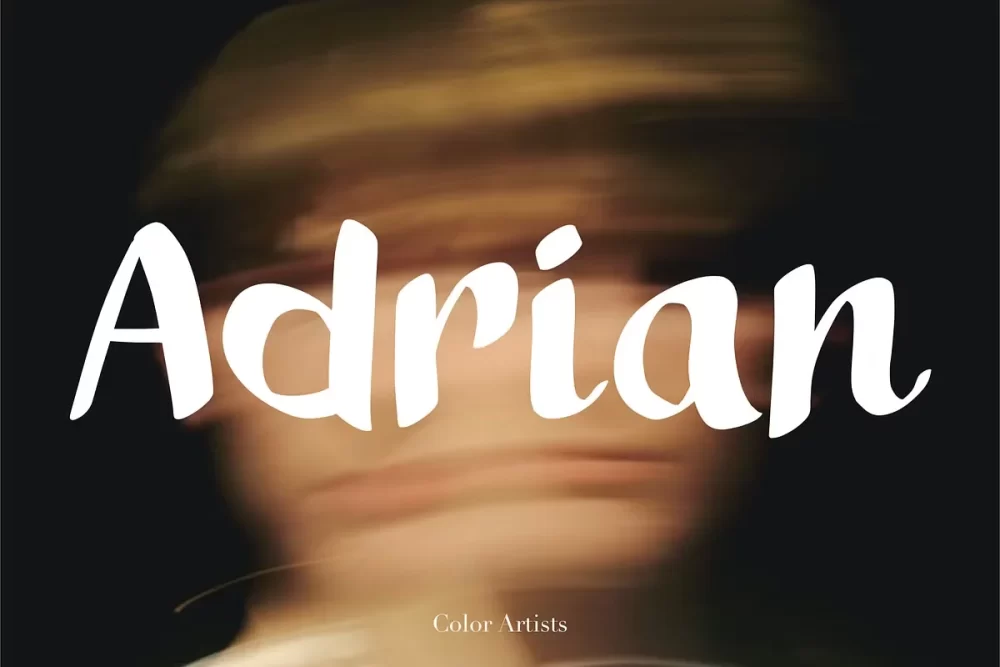
Adrian a handwritten script font. It’s available in multiple formats, so you can use it in any design software you prefer. Plus, the font is fully customizable, so you can adjust the size, color, and other details to fit your project perfectly.